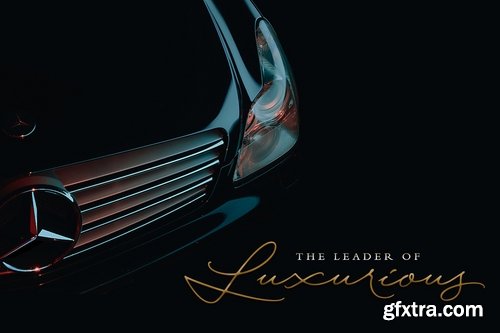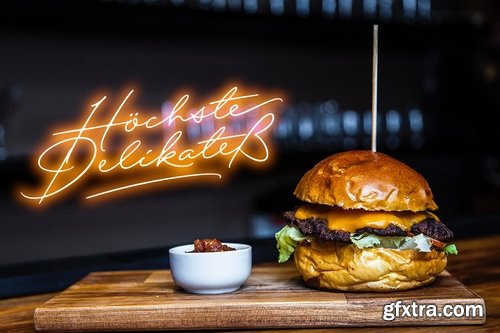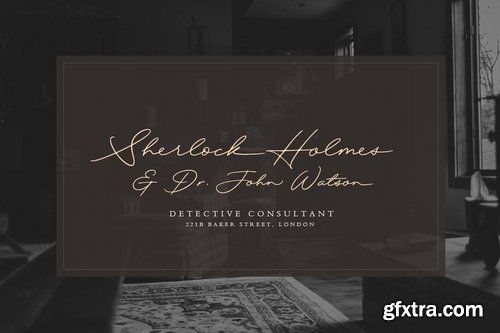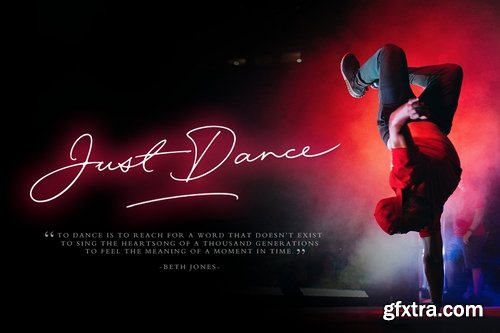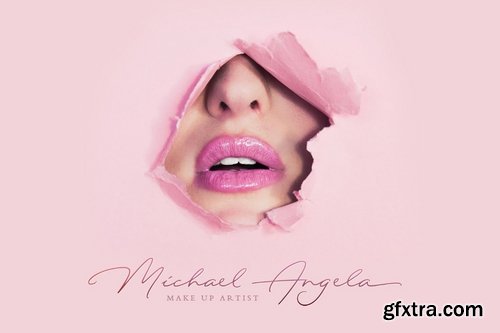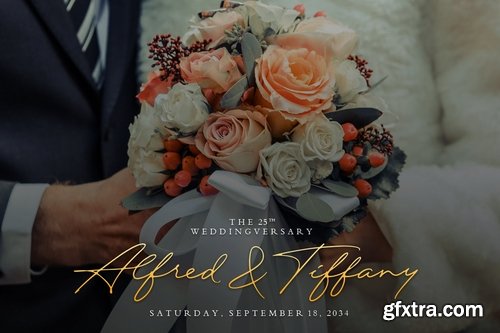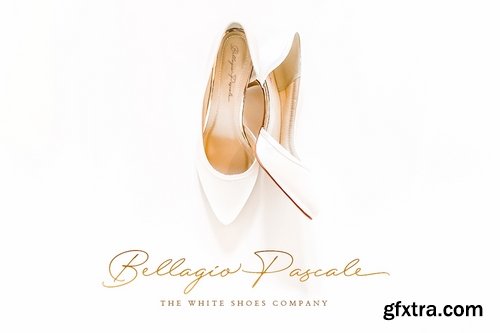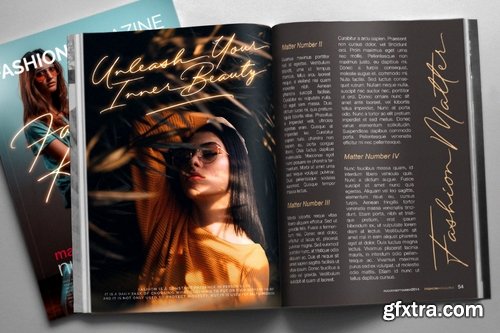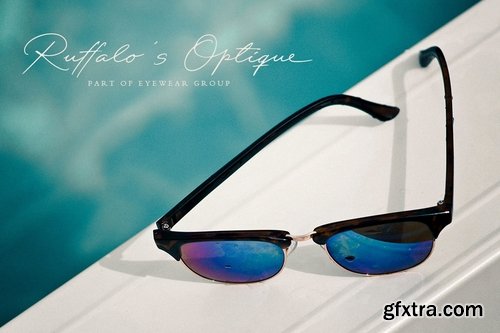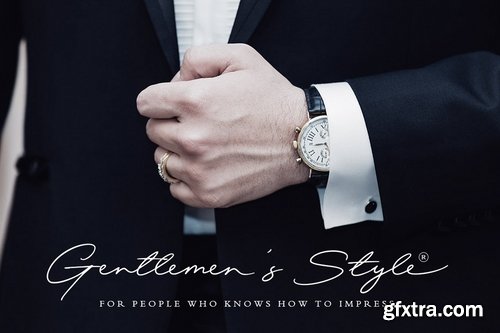
Time after time, Handwritten fonts are always very popular on every marketplace. And after almost 8 months off from the font industry, i present you one of my best shot handwritten font ; Excellent Signature.
In a short description; Excellent Signature is made for Excellent Typography.
Things on my mind when i started to create this handwritten font is; This font has to be a good looking, elegant and feel luxurious. And the most important thing is, this font will produce a good harmony when the letters are connected and paired each other.
No matter you make it large or small size, i believe with this font you can create a very elegant-readable signature for your personal or business name card. A Luxurious Logotype for your Brand or Corporation. Storefront, Signboard or a Neon Sign. Magazine, Movie, or Book Titles, Photography, Wedding Invitation or T-shirt Design. Flyer or Banner Ads, for web and printing, from Food, Fashion to a Cosmetics product , or even for Automobile Poster Design. No limitations!
Totally 511 glyphs packed inside this font. I've separated all the alternates glyphs into several OpenType Features: Stylistic Alternates/SALT Contextual Alternates/CALT Initial Forms/INIT Terminal Forms/FINA Ligatures/LIGA Stylistic Set/SS01-09 PUA Unicode are available! LANGUAGE SUPPORT: Albanian, Basque, Breton, Chamorro, Danish, Dutch, English, Finnish, French, Frisian, Galician, German, Italian, Malagasy, Norwegian, Portuguese, Alsatian, Arapaho, Arrernte, Aymara, Bislama, Cebuano, Corsican, Fijian, French_creole, Genoese, Gilbertese, Greenlandic, Haitian_creole, Hiligaynon, Hmong, Hopi, Ibanag, Iloko_ilokano, Indonesian, Interglossa_glosa, Interlingua, Irish_gaelic, Jerriais, Lojban, Lombard, Luxembourgeois, Manx, Mohawk, Norfolk_pitcairnese, Occitan, Oromo, Pangasinan, Papiamento, Piedmontese, Potawatomi, Rhaeto-romance, Romansh, Rotokas, Sami_lule, Samoan, Sardinian, Scots_gaelic, Seychelles_creole, Shona, Sicilian, Somali, Southern_ndebele, Swahili, Swati_swazi, Tagalog_filipino_pilipino, Tetum, Tok_pisin, Uyghur_latinized, Volapuk, Walloon, Warlpiri, Xhosa, Yapese, Zulu, Latinbasic, Ubasic. [TUTORIAL] How To Access The Alternate Characters from This Font: https://youtu.be/xJswoC2g8yk